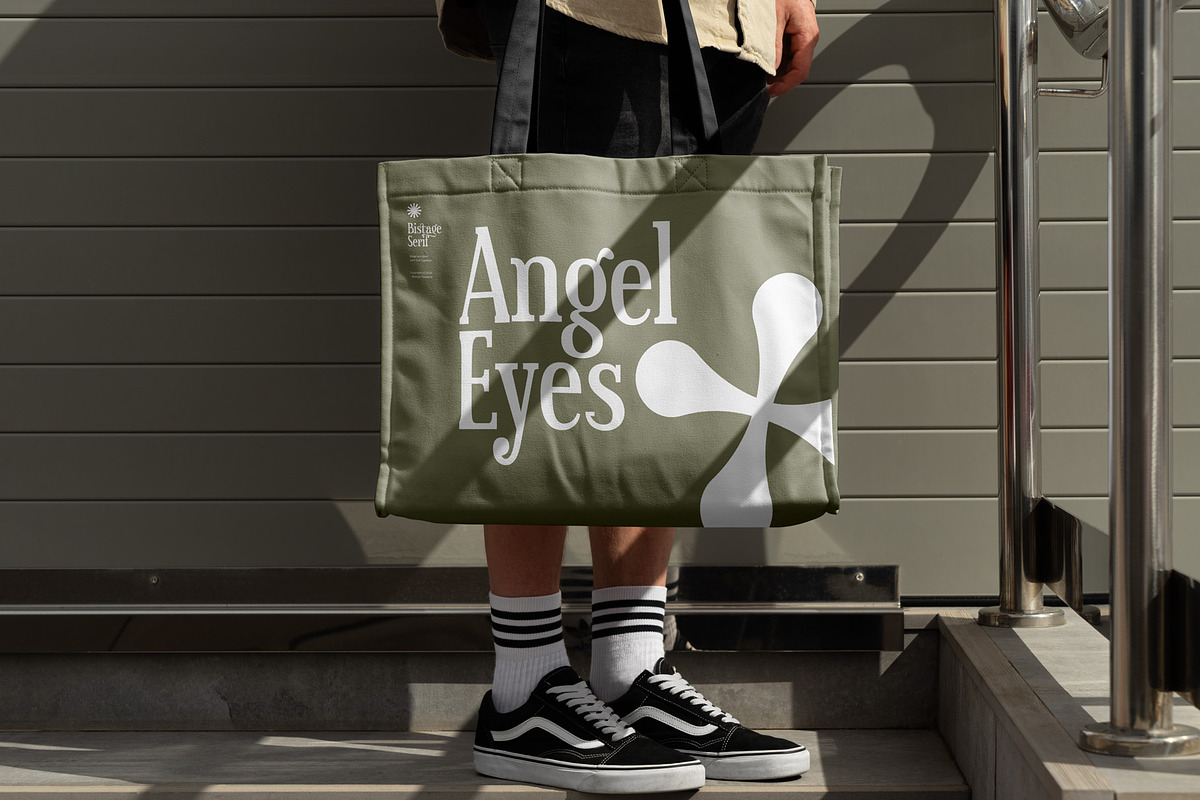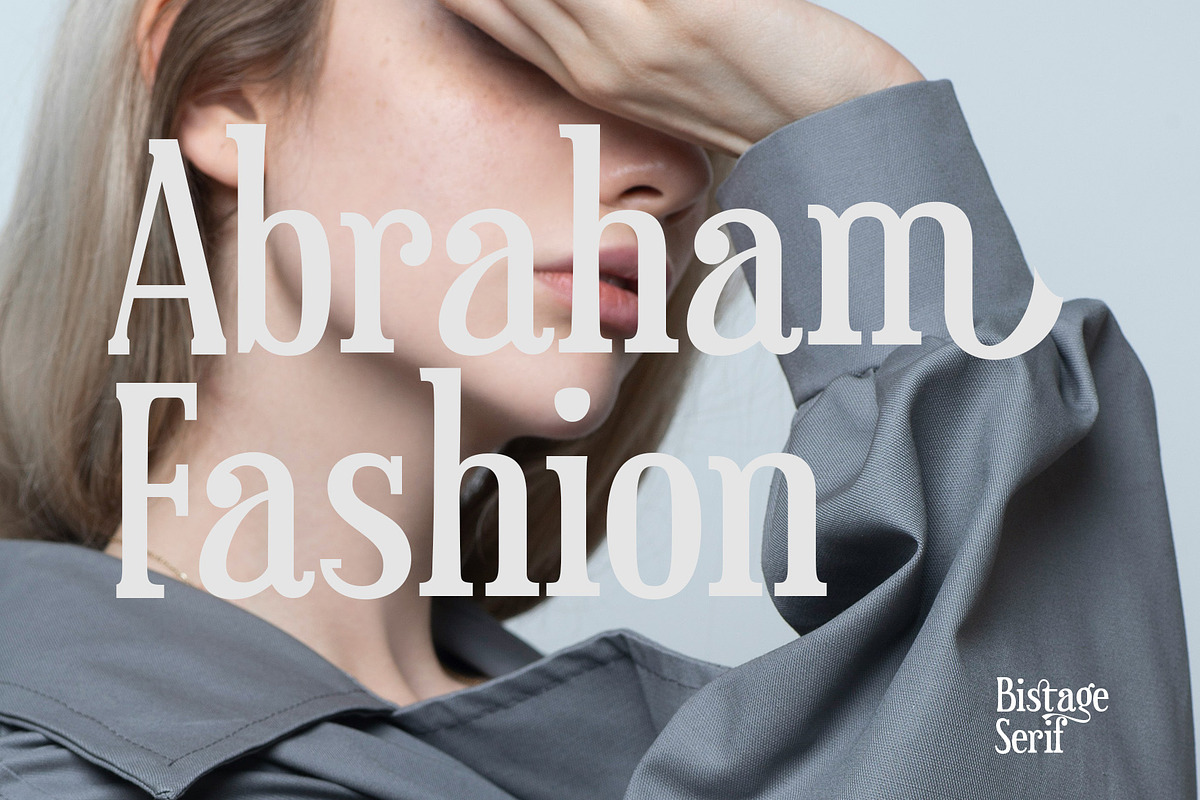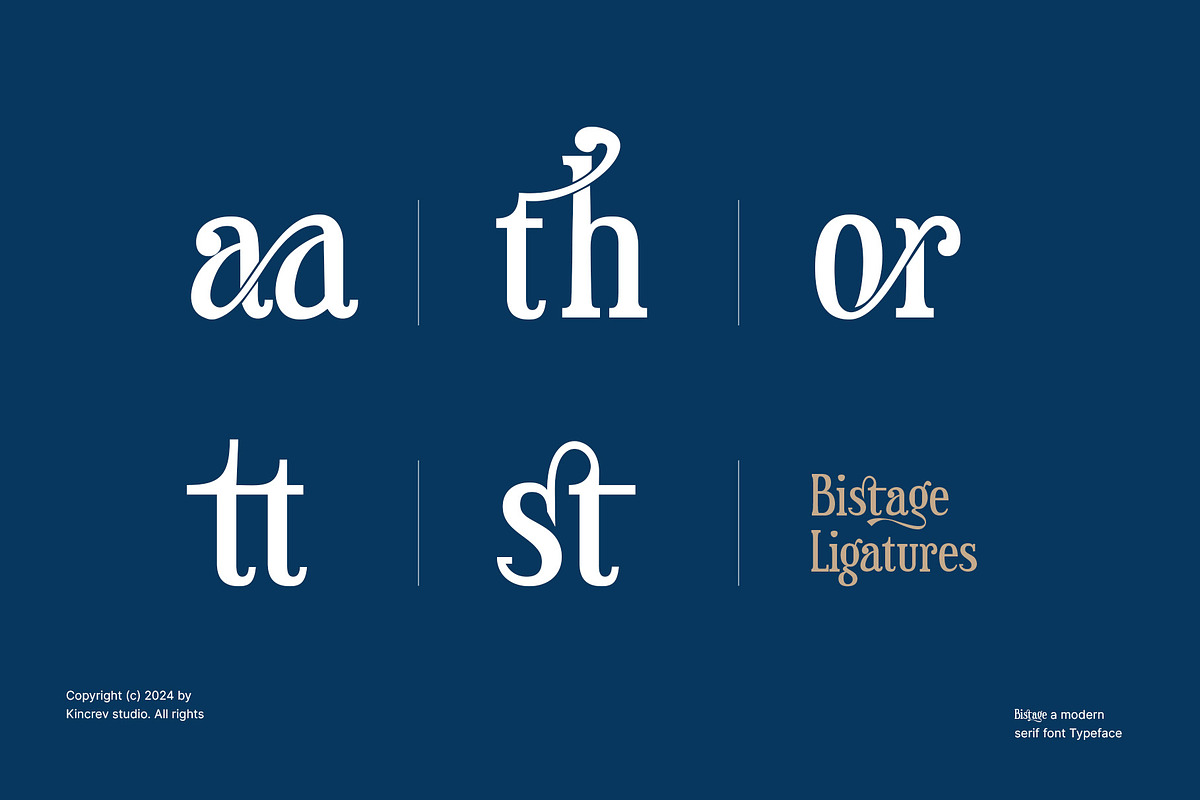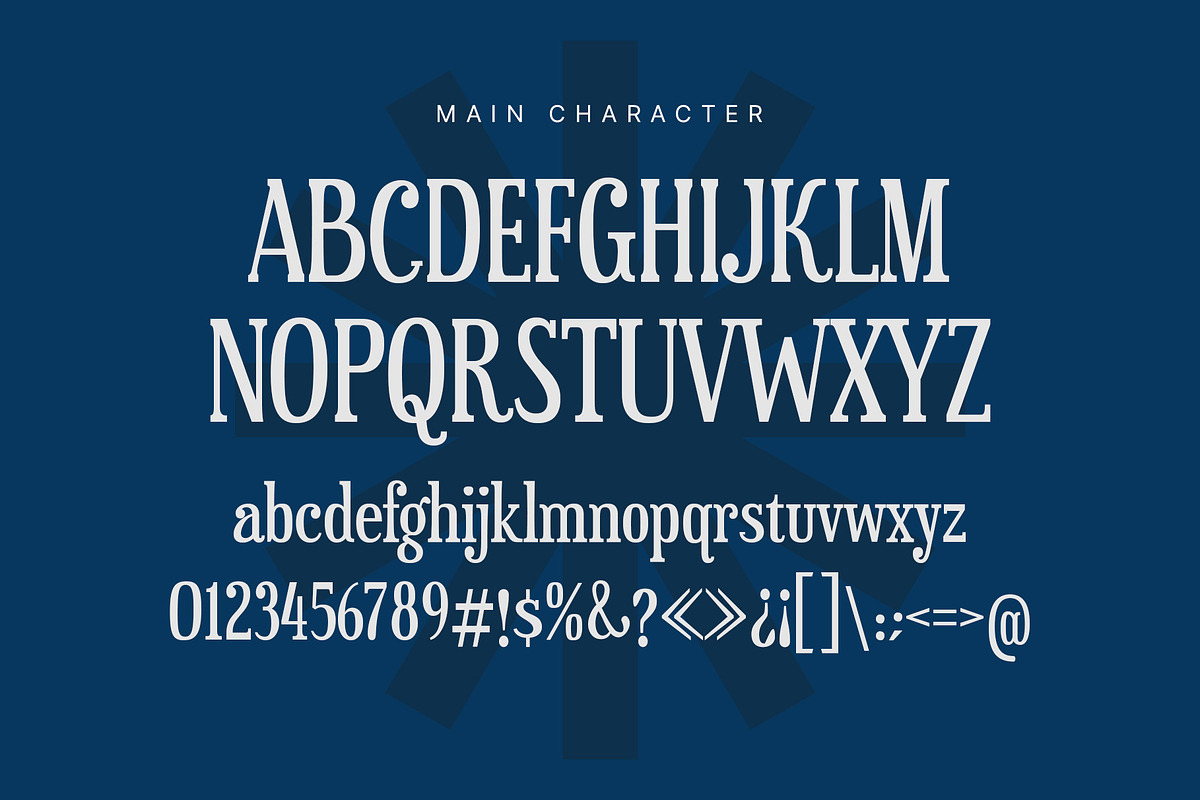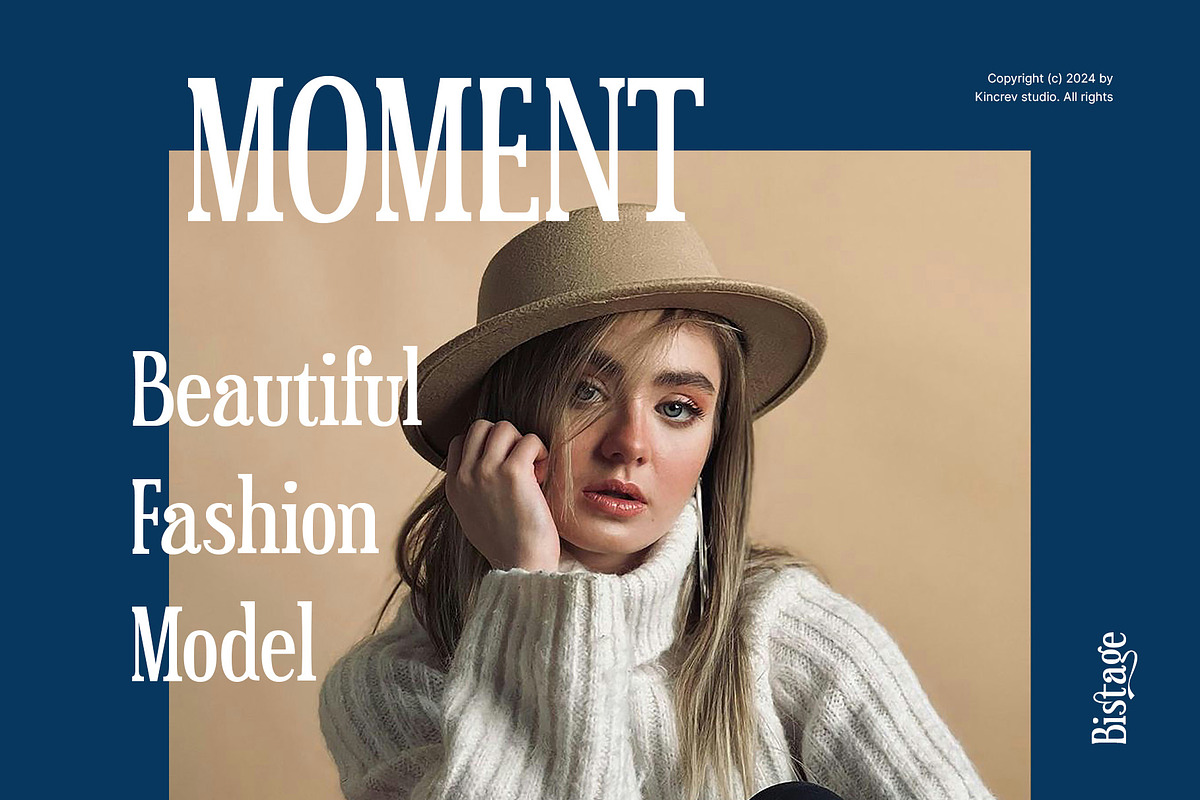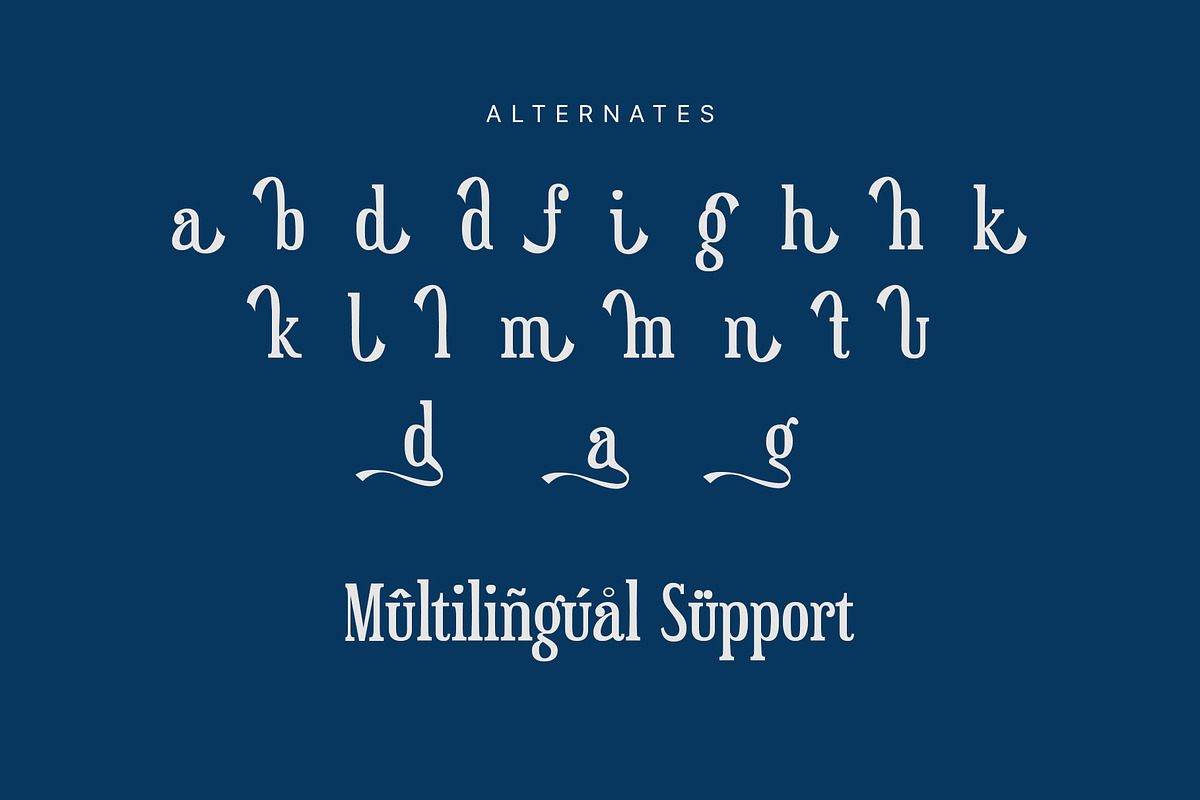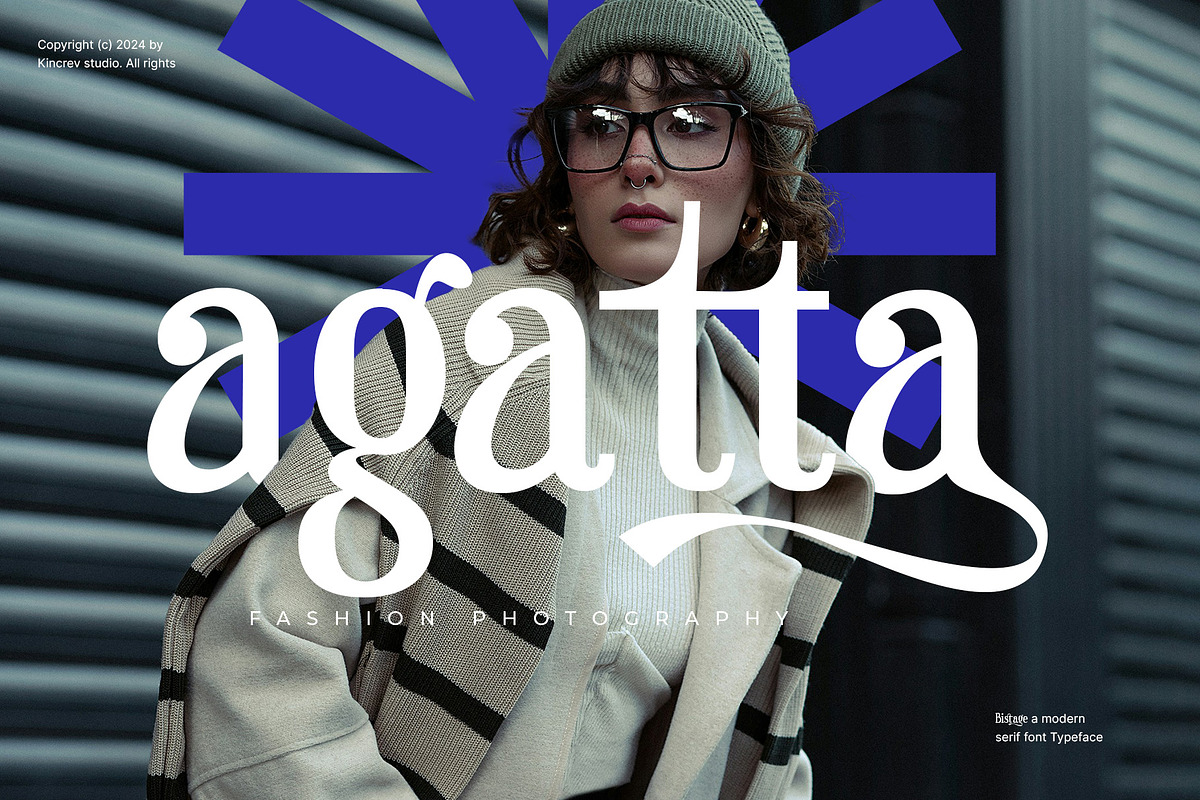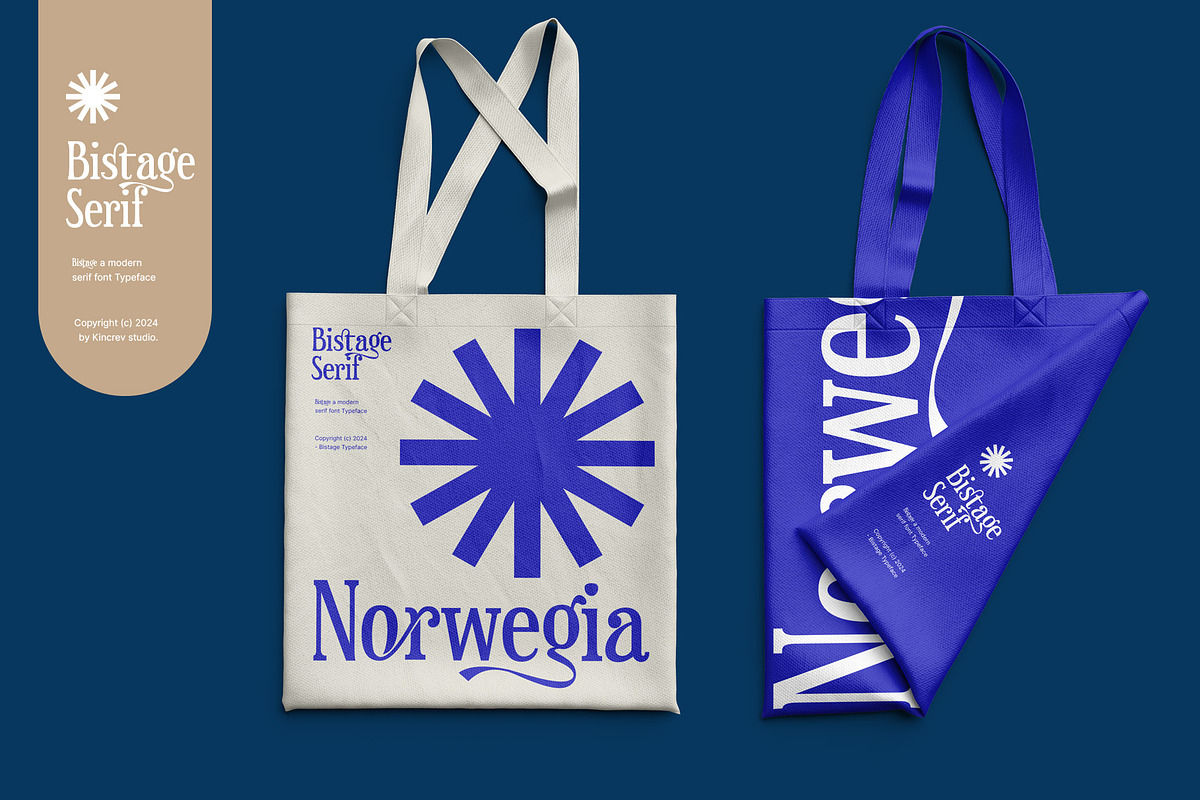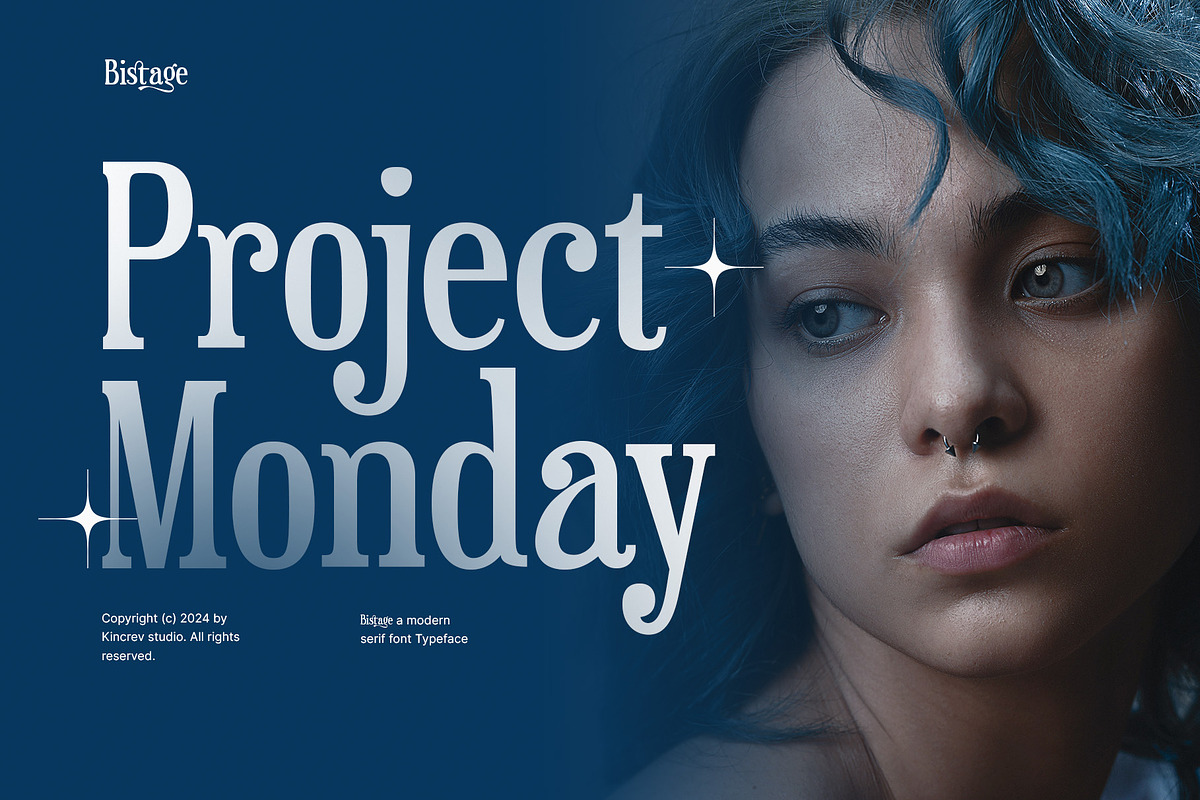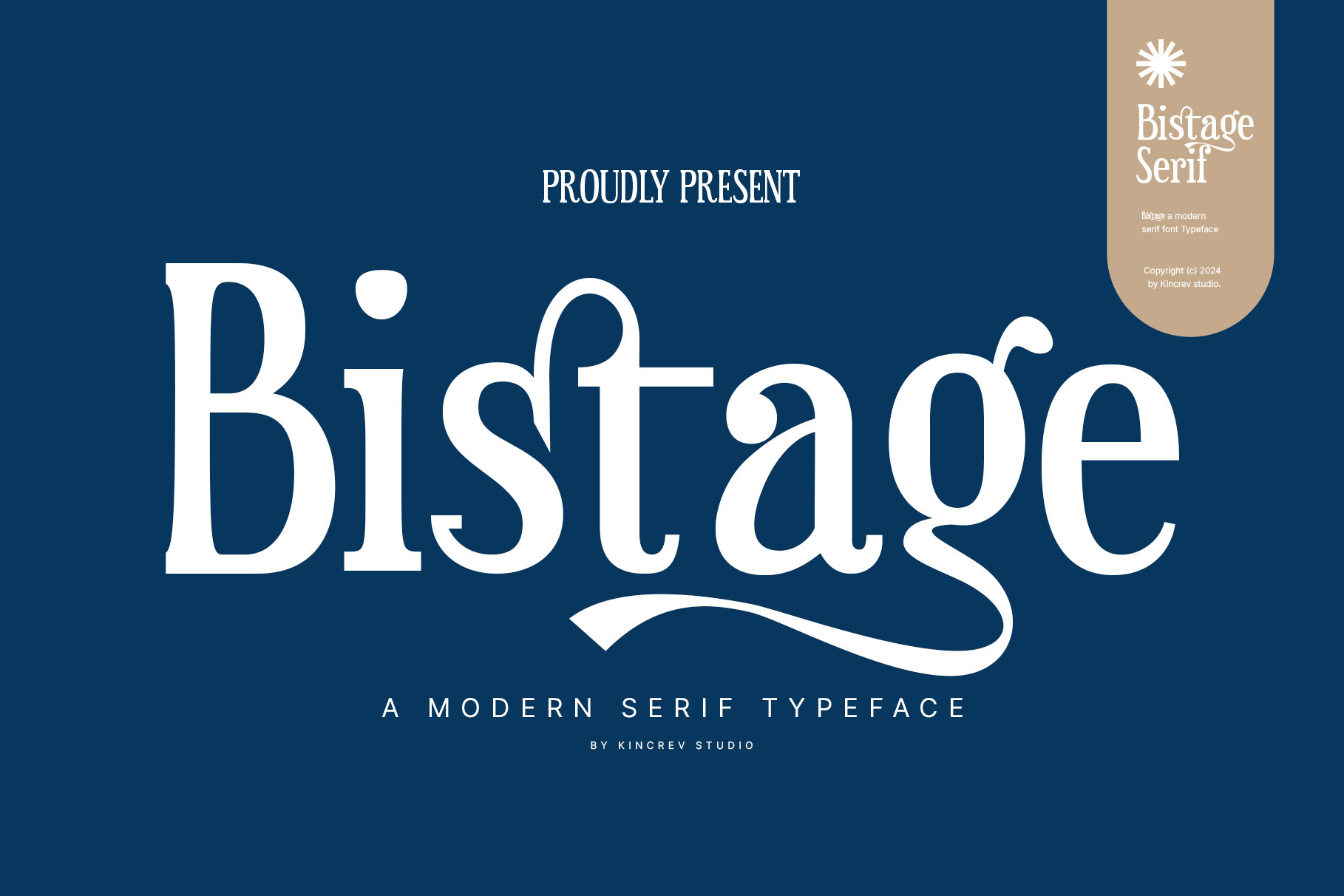
Bistage - a Modern Serif Typeface
Hello, Everyone! Ready to make your branding design outstanding? If you need to create a stylist, unique, and modern sporty look for your business, work on a poster for an event, or whatever your projects are, Bistage is the perfect one for you.
Bistage, a modern serif font is font for you to get your designs with stylist, unique, and modern sporty look. It is made in uppercase & lowercase letters which are simple and easy on the eyes and nice to look at, and easy to read. This font is designed to bring your brandings to life and add a touch of sporty modern, bold, fun and style.
Bistage fits for any design projects, such as posters, banners, logos, book covers, album covers, quotes, invitations, greeting cards, name cards, headings, printed products, merchandise, social media, etc. Find out more ways to use this font by taking a look at the font preview.